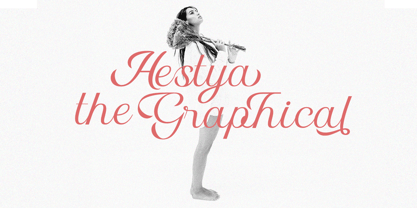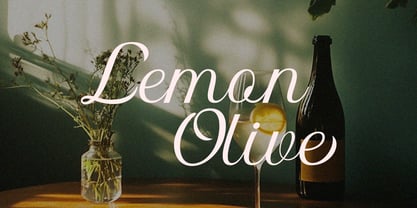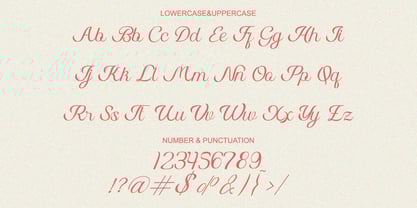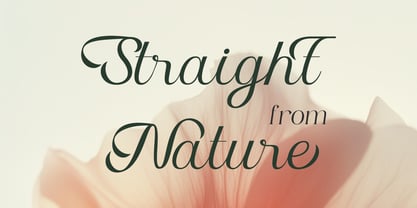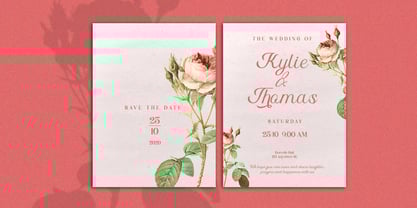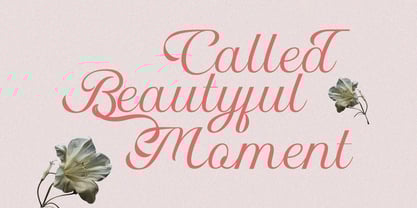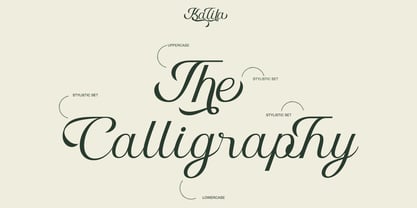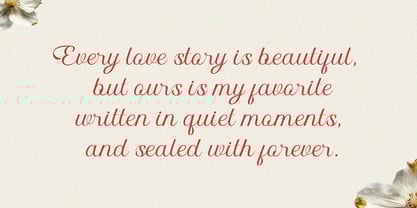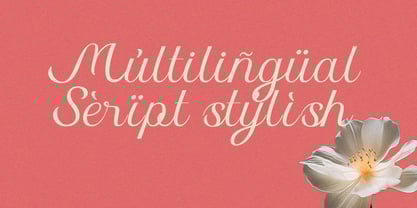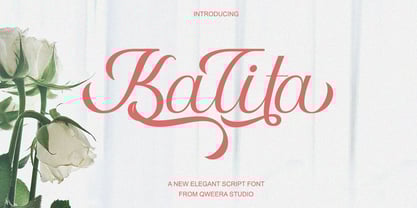
Kalita
by Qweera Studio
The Kalita Font Family was designed by Idhham Cholid Rikzano Yahya and published by Qweera Studio. Kalita contains 1 styles.
Kalita - Modern Elegant Script Font for Sophisticated Branding
Kalita is a beautifully crafted modern script font that exudes effortless elegance and contemporary charm. Featuring stylistic alternates and fluid ligatures, this typeface is perfect for creating luxurious branding, feminine logos, premium packaging, and editorial designs with a touch of refined sophistication.
Where Modern Elegance Meets Artistic Fluidity
With its smooth, flowing strokes and graceful character variations, Kalita offers unmatched versatility for brands seeking both sophistication and personality. The carefully designed alternates allow for custom typographic expressions that feel both polished and personal.
Premium Features Include:
• Elegant Script Design – Fluid, contemporary letterforms
• Stylistic Alternates – Multiple character variations
• Beautiful Ligatures – Seamless letter connections
• Universal Application – From luxury packaging to social media
• Extended Latin Support – Comprehensive character set
Elevate Your Brand with Kalita's Refined Beauty Ideal for:
• Feminine beauty branding
• Wedding stationery
• Luxury product packaging
• Fashion editorial designs
• Elegant logo creation